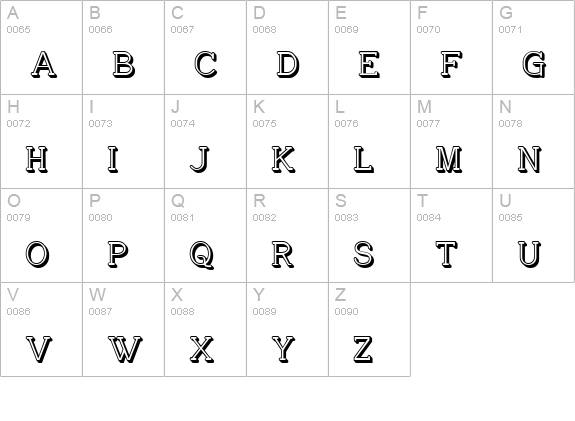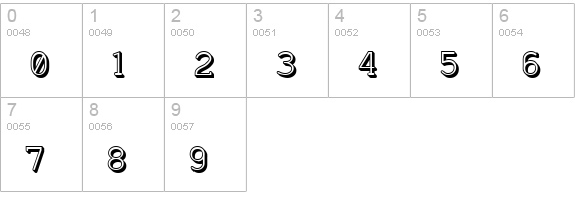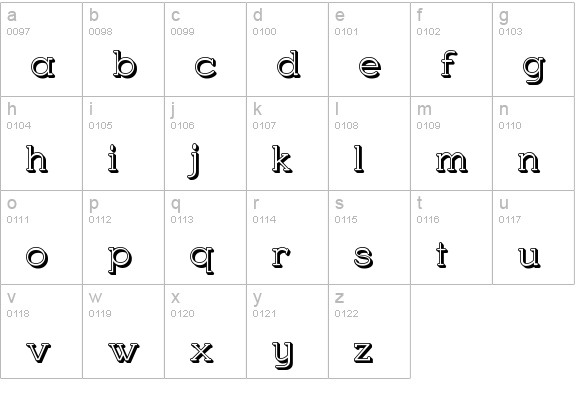
Charrington Posh font exudes elegance and sophistication with its sleek and modern design. This beautiful typeface features clean lines and stylish curves that make it perfect for adding a touch of luxury to any project. The Charrington Posh font is ideal for creating stunning logos, branding materials, invitations, and more. Best of all, Charrington Posh font is available for free download at FontsMarket.com. This means you can easily access this premium font and elevate your designs without any cost. Don't miss out on the opportunity to add a touch of glamour to your projects with the stunning Charrington Posh font. Download it today and elevate your designs to the next level.